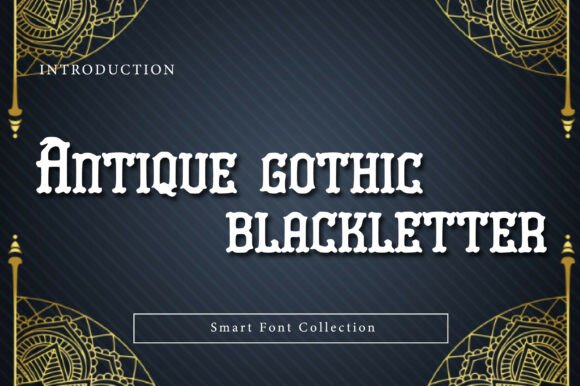
The Timeless Charm of Antique Gothic Font
This stunning typeface is inspired by medieval manuscript lettering and classic Old English typography. Its sharp, angular strokes, strong vertical rhythm, and ornate details evoke a powerful historical presence that’s perfect for designs that need a vintage, gothic, or traditional aesthetic.
What I Love About Antique Gothic Font
- ✨ Bold and decorative: This font makes a statement, making it ideal for logos, headlines, posters, album covers, and branding designs.
- ✅ Highly legible: Despite its ornate details, Antique Gothic Font remains surprisingly readable, even at smaller sizes.
- 🔍 Rich in character: The font’s intricate details and sharp strokes give it a unique personality that’s sure to add depth to your designs.
While Antique Gothic Font is an exceptional typeface, it’s not without its quirks. Here are a few things to keep in mind:
- 🤔 Limited use in body text: Due to its bold and ornate nature, this font is best suited for display purposes. It may not be the best choice for lengthy paragraphs or body text.
- ⚠️ Kerning and spacing: As with any font, you may need to adjust kerning and spacing to achieve optimal results, especially when using it in combination with other fonts.
- Experiment with OpenType features like stylistic alternates and glyphs to add more character to your text.
The Designer Inspiration Behind Antique Gothic Font
The story goes that the creator of Antique Gothic Font was a typography enthusiast who spent years studying medieval manuscripts and classic Old English typography. Inspired by the intricate details and bold strokes of these ancient texts, they set out to create a font that would bring this aesthetic into the modern era. After months of painstaking design work, Antique Gothic Font was born – a true masterpiece of typographic art.
Q: What is the history behind Antique Gothic Font?
A: Antique Gothic Font is inspired by medieval manuscript lettering and classic Old English typography, reflecting the bold and ornate styles of the Middle Ages.
Q: Is Antique Gothic Font suitable for body text?
A: While Antique Gothic Font is highly legible, its bold and ornate nature makes it better suited for display purposes. For body text, consider using a more traditional serif or sans-serif font.